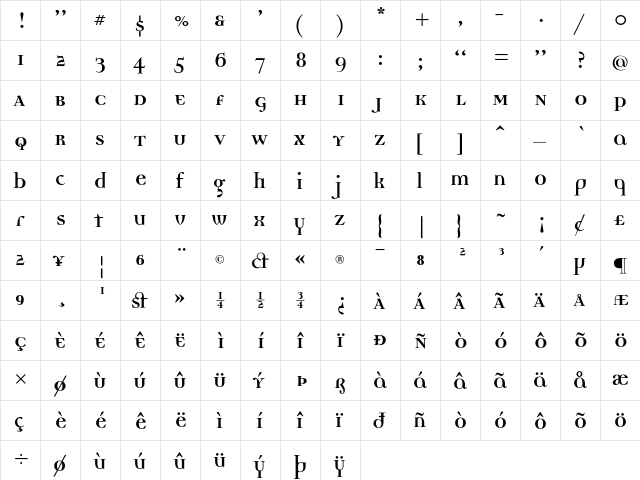
DemocraticaBold Regular
Design Context for DemocraticaBold Typeface
DemocraticaBold is a composed and adaptable typeface that performs quietly and consistently across a wide range of design contexts. Its bold stroke weight gives it real presence on the page.